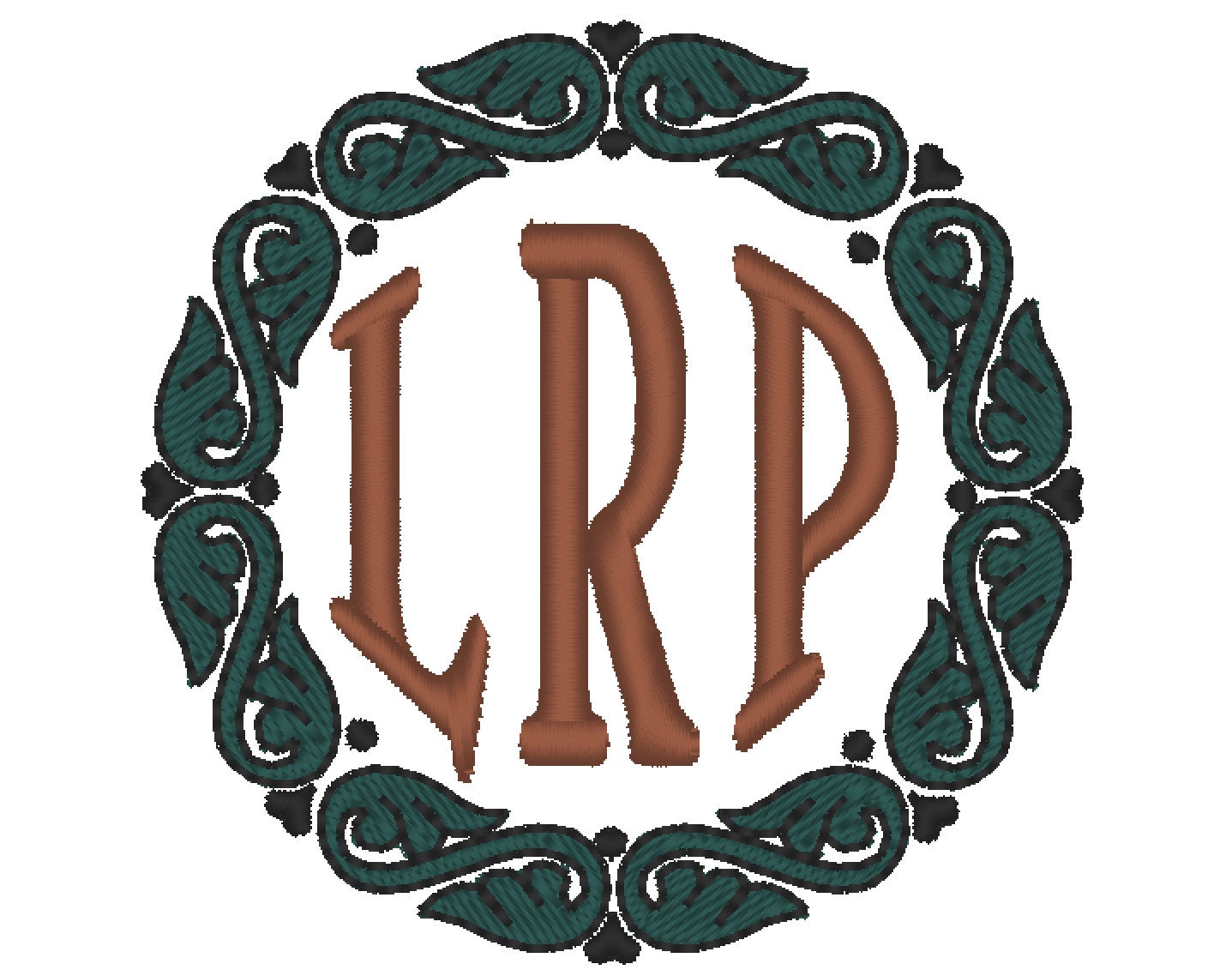
Celtic circle and circle monogram Font, machine embroidery designs classy Circle monogram alphabet letters and Celtic frame assorted sizes
Make gorgeous three letter circle monograms quickly and easily.
CIRCLE MONOGRAM is a trendy monogram set
This set includes 78 uppercase letters to complete 3 letter monogram in satin stitch.
Also, included Celtic laurel leaves circle monogram frame.
This set includes 78 uppercase letters for a complete 3 letter monogram in satin stitch